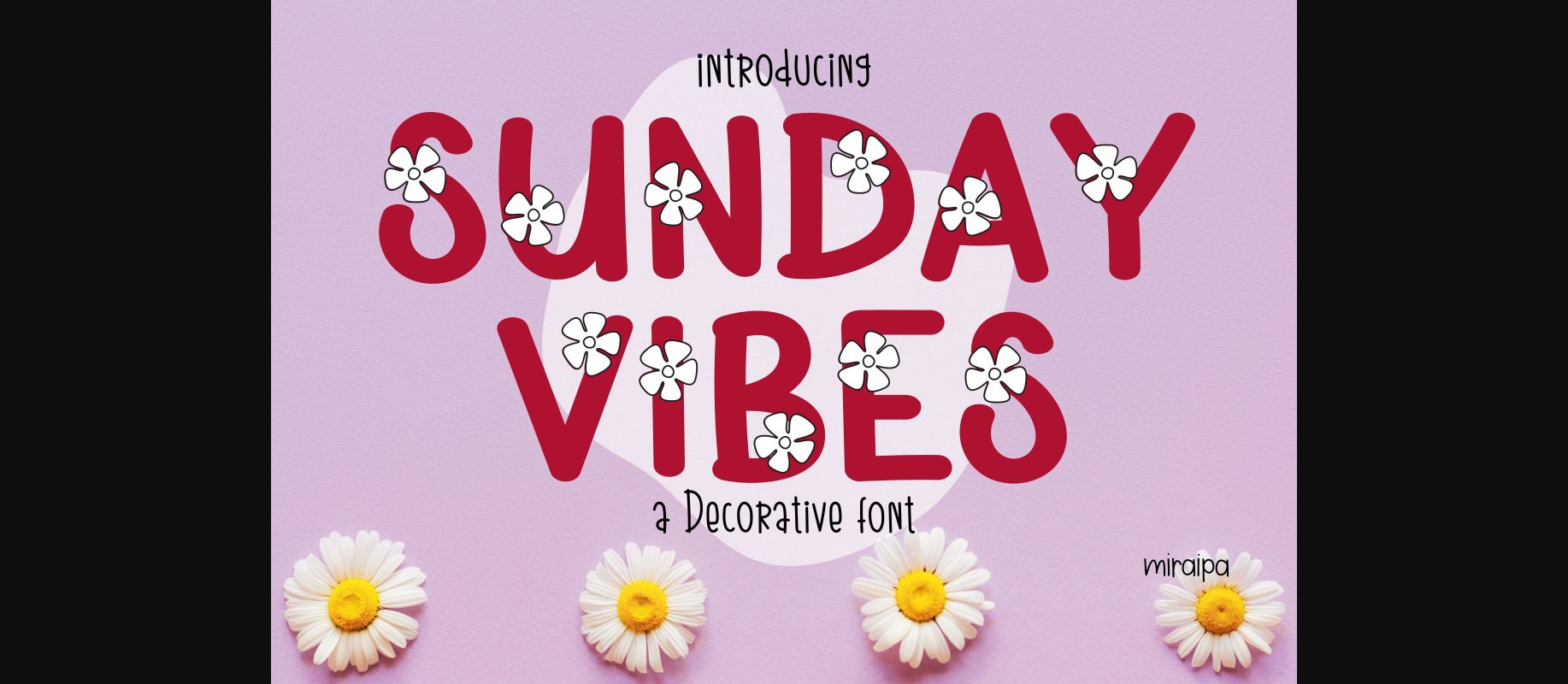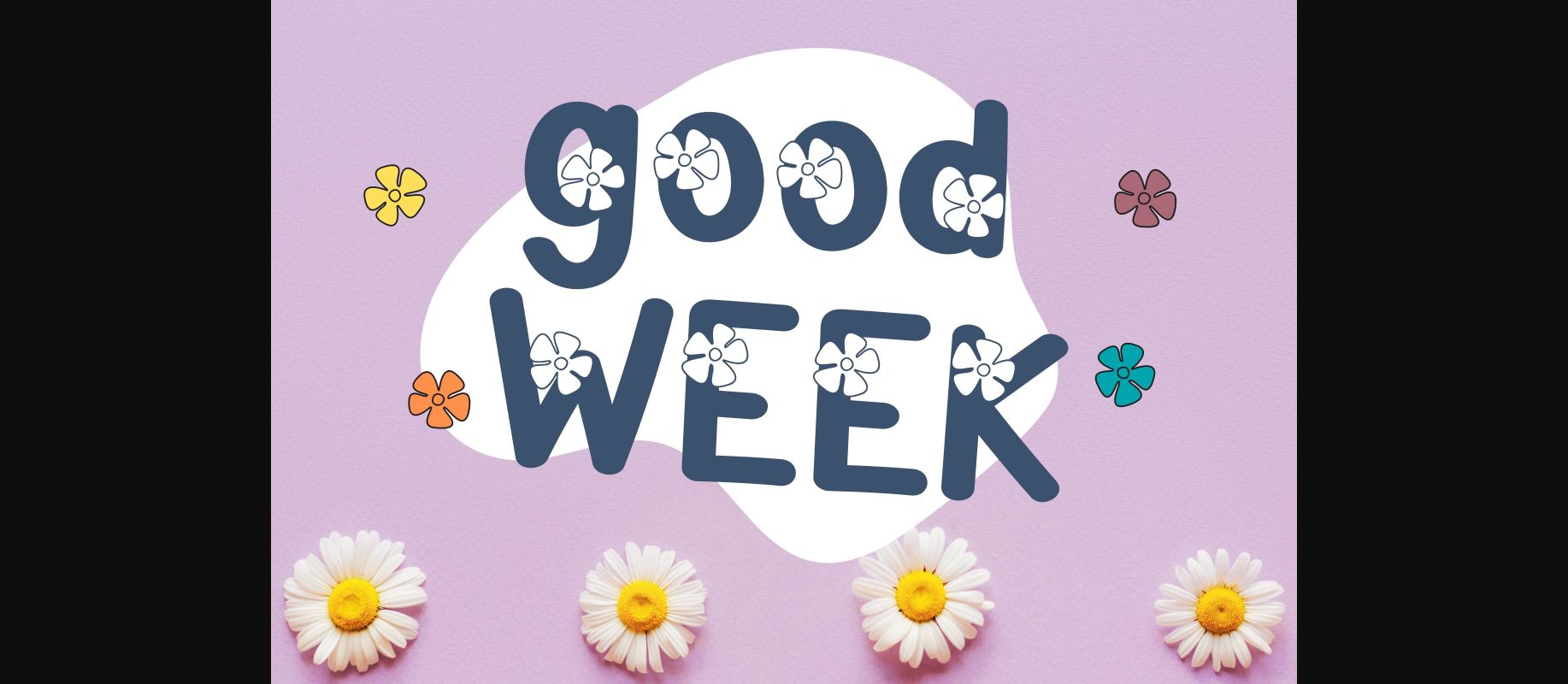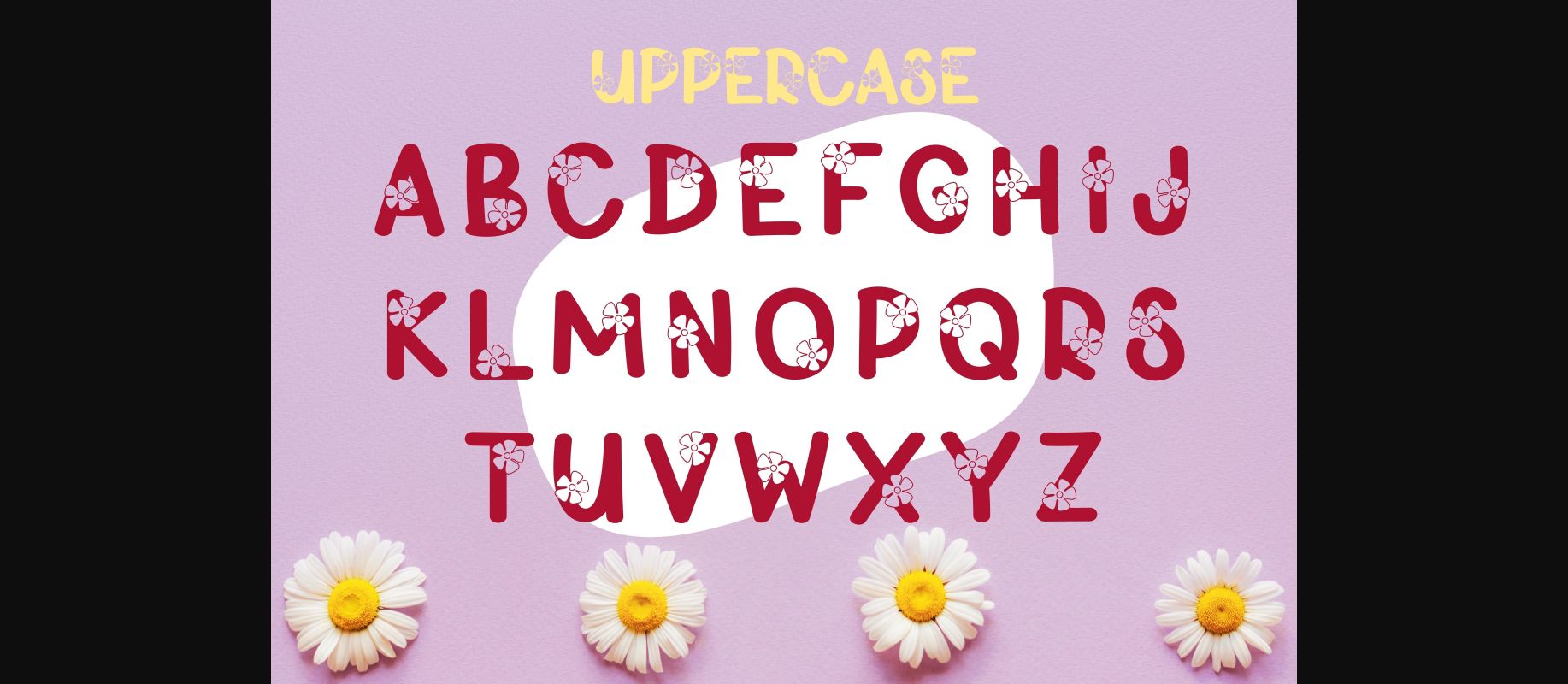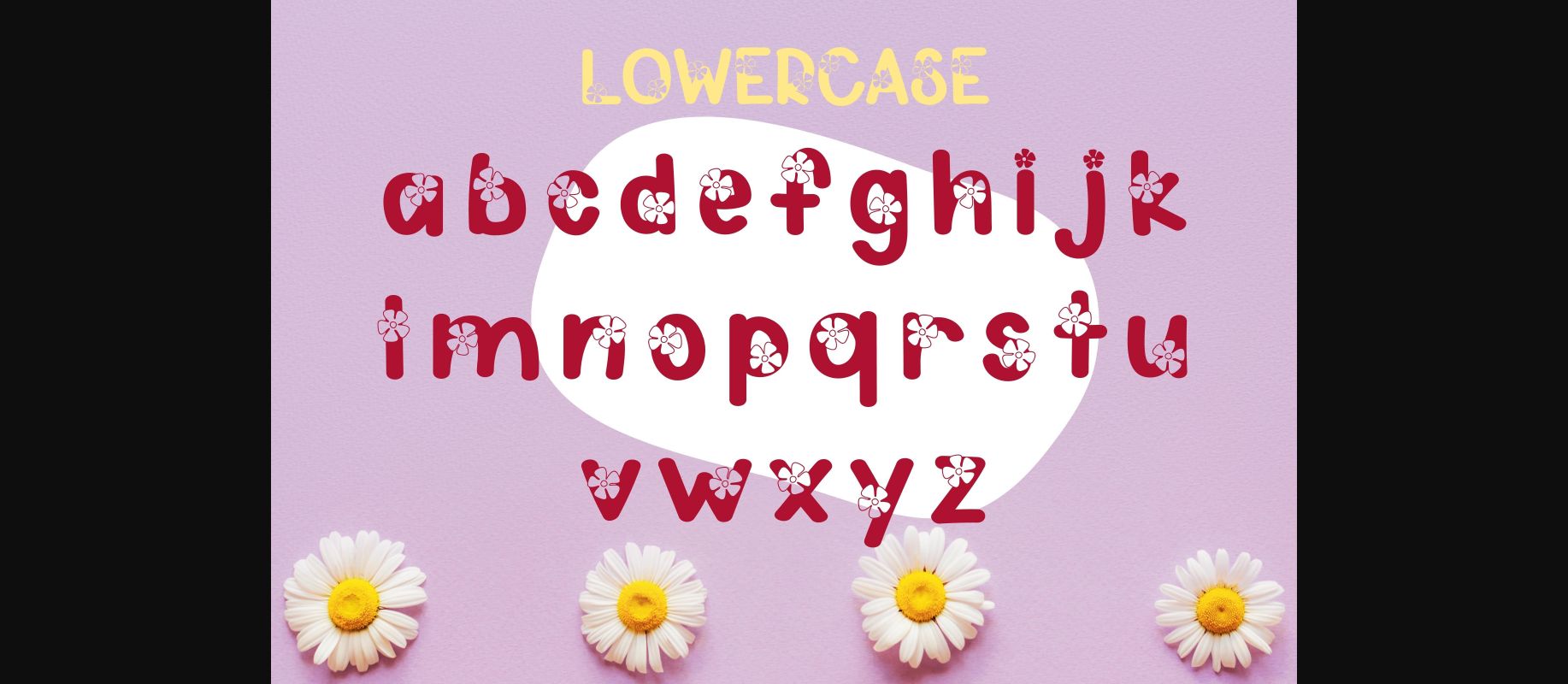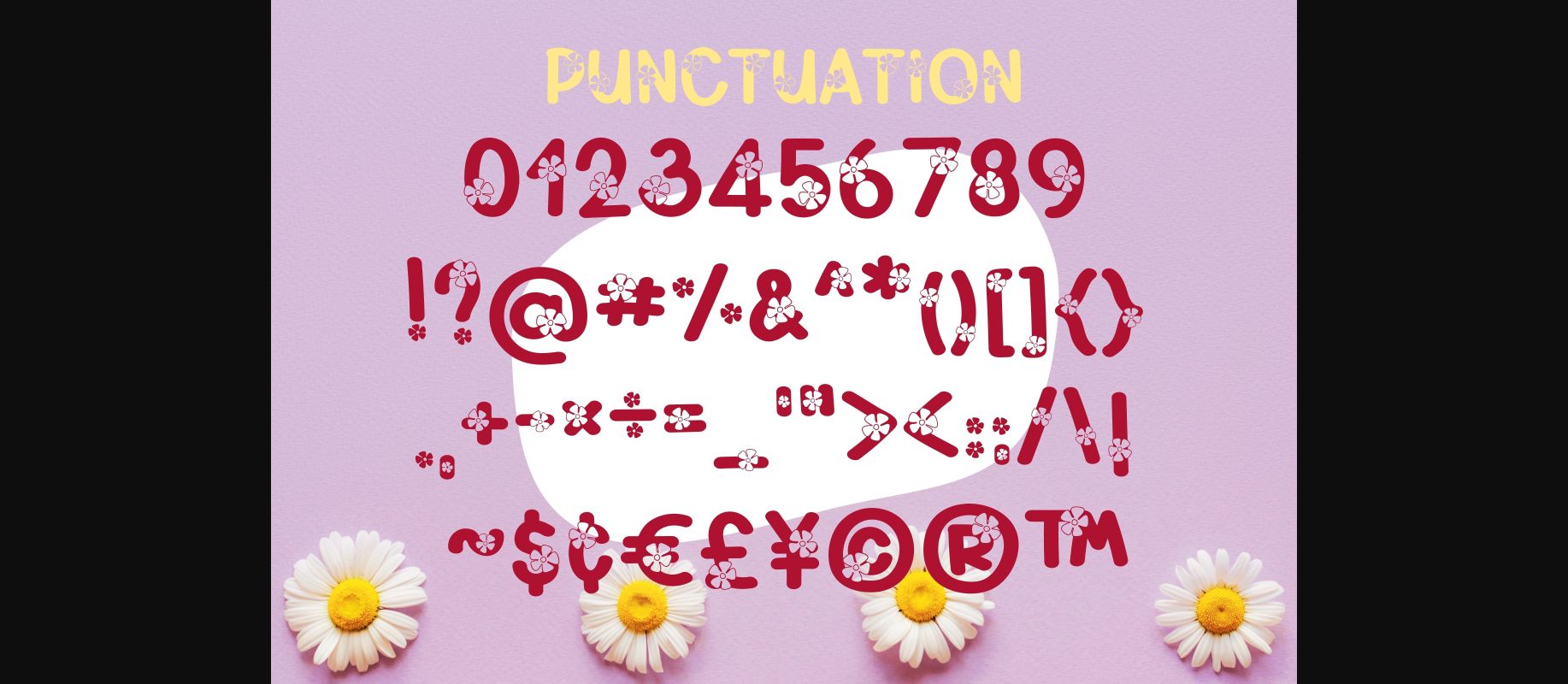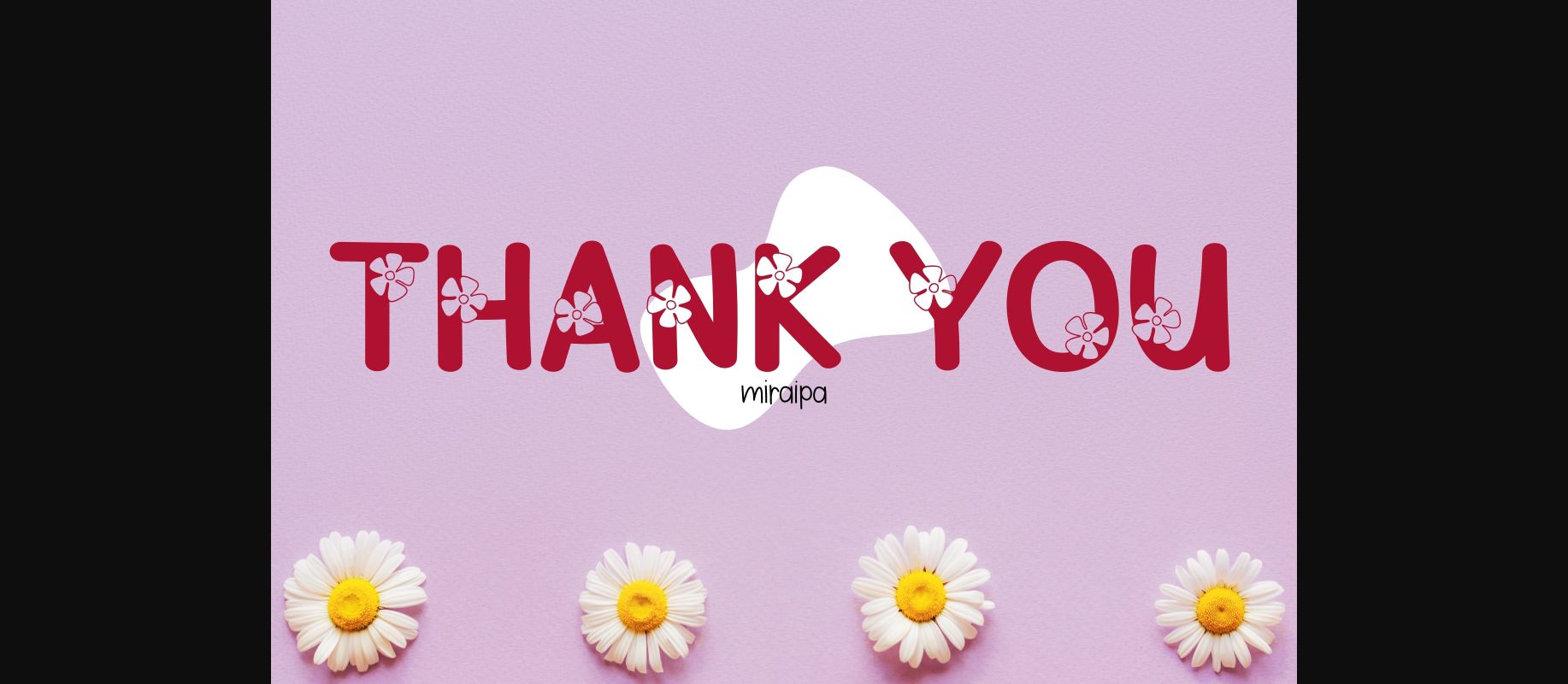
HomeDecorative FontsSunday Vibes Font Decorative Fonts Sunday Vibes Font FacebookXPinterestWhatsApp 1 of 8 ... Sunday Vibes Font Poster 2... Sunday Vibes Font Poster 3... Sunday Vibes Font Poster 4... Sunday Vibes Font Poster 5... Sunday Vibes Font Poster 6... Sunday Vibes Font Poster 7... Sunday Vibes Font Poster 8... About Sunday Vibes Font Sunday Vibes is a fun and friendly decorative font. Girly and playful, this font is perfect for a large variety of projects requiring a lovely touch. DOWNLOAD NOW People also explored Envelope Font Mandala Mountain Font Milk Craft Christmas Font Sunday Smoothie Font Day Drinking Font Show Up! Font Spooky Font Jelly Fish Harritton Font 265 0 TagsSunday Vibes Font Previous articleHello Fall FontNext articleScary Pumpkin Font LEAVE A REPLY Cancel reply Comment: Please enter your comment! Name:* Please enter your name here Email:* You have entered an incorrect email address! Please enter your email address here Website: Save my name, email, and website in this browser for the next time I comment. Personal Use Free Beautiful Personal Use Free Read more about this font Frizton Personal Use Free Read more about this font Straighler Personal Use Free Read more about this font Special Day Personal Use Free Read more about this font BLOG Top 10 Handwritten Fonts That Elevate Your Designs Top 10 Handwritten Fonts That Will Elevate Your Designs Handwritten fonts bring a warm, personal touch to every creative project. Whether you're designing logos, invitations,... Best Fonts for YouTube Videos: Make Your Thumbnails Stand Out Modern Sans-Serif Fonts That Brands Love in 2025 Best Fonts for T-Shirt Design – Top 2025 Picks